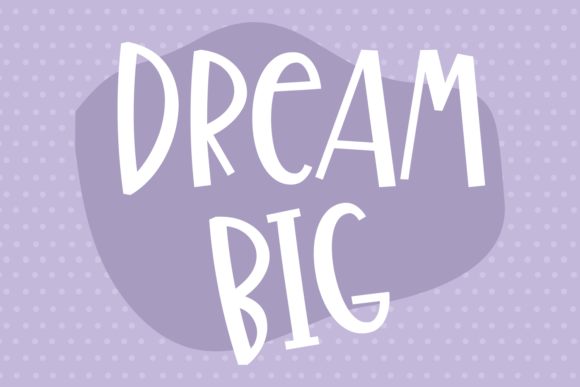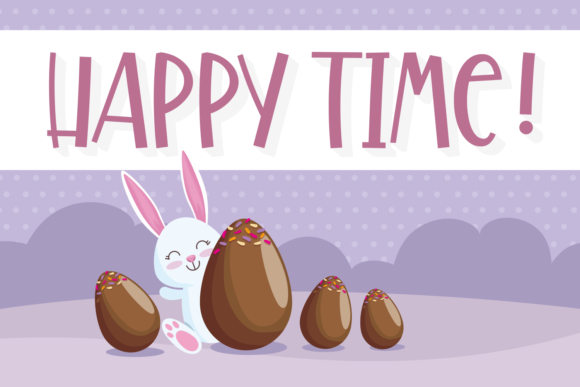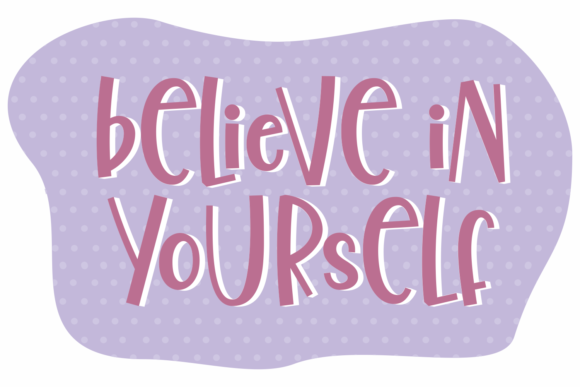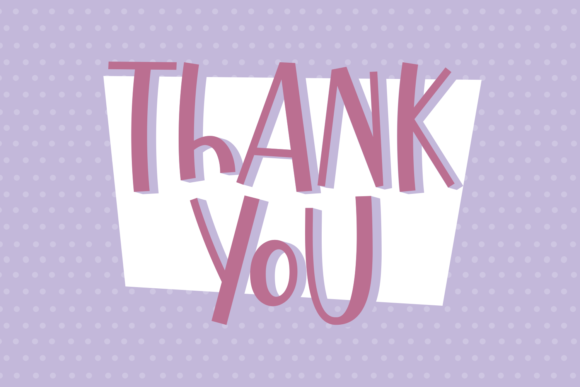
Introduction to Chokycook Font
Do you remember that moment when you stumble upon a design element that perfectly captures the essence of your creative vision? For designers, this is often a moment of pure joy, and it can make all the difference in a project. The right font can elevate a design from ordinary to extraordinary, and today we’re excited to introduce you to the charming Chokycook Font.
As a free download, the Chokycook Font offers high-quality typography that is perfect for adding a touch of whimsy to your creative project. With its transparent background and playful style, this font is a valuable design resource for anyone looking to add a bit of personality to their work. Whether you’re working on a graphic design project, a digital art piece, or even a social media campaign, the Chokycook Font is sure to bring a smile to your face and a boost to your design.
- Unique, hand-drawn design with a high level of detail, making it a great design resource for creative projects.
- Perfect for use in creative projects that require a unique and eye-catching font, such as graphic design, digital art, and typography.
Honest Review: Chokycook Font
I recently had the chance to work with the Chokycook Font, and I must say it’s been a game-changer for my creative projects. As a designer, I’m always on the lookout for high-quality design resources that can elevate my work.
- ✨ Beautifully crafted characters with a unique aesthetic that adds a touch of sophistication to any design.
- ✨ The font’s versatility makes it perfect for a wide range of creative projects, from editorial designs to branding materials.
While the Chokycook Font is an excellent addition to any designer’s toolkit, there are a few limitations to be aware of:
- ⚠️ Limited language support, which may be a concern for designers working on projects that require multiple languages.
- ⚠️ Not suitable for small font sizes, as the characters may become distorted.
Overall, I’m thoroughly impressed with the Chokycook Font. Its unique design and high-quality craftsmanship make it a valuable resource for any designer. The free download option is a bonus, and I appreciate the transparent background feature, which makes it easy to integrate with my designs. If you’re looking for a font that can add a touch of elegance to your creative projects, I highly recommend giving the Chokycook Font a try.
The Chokycook Font is suitable for a wide range of creative projects, including social media graphics, presentations, flyers, logos, and documents. You can use it to add a touch of elegance and sophistication to your design.